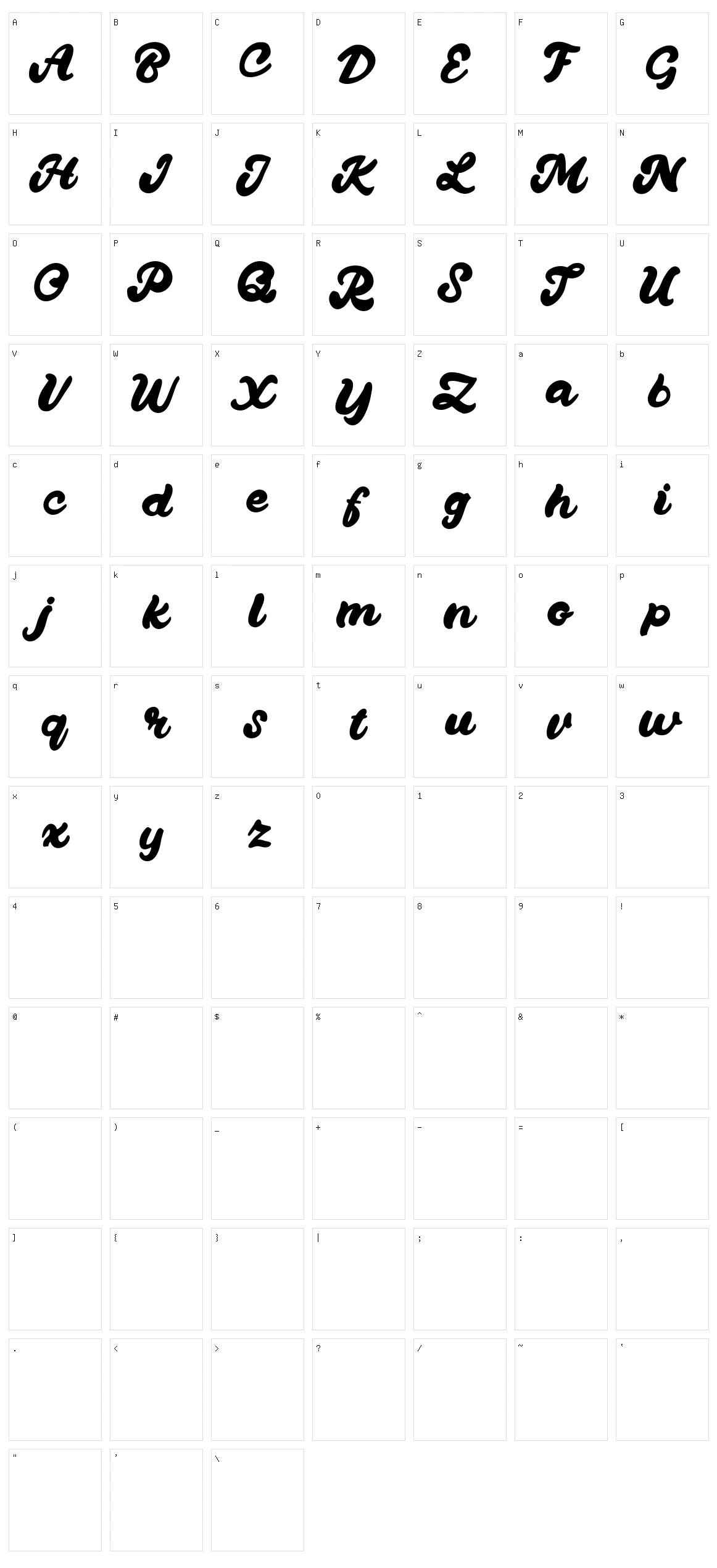
The free font Quanty is carefully designed by Vunira Design, showcasing a thoughtful balance of creativity and usability and falls under the Old-School font style. When you download the ZIP file, it contains only 42.55 KB of font files, making it lightweight and quick to download. Please review the license details below to understand permitted usage and distribution rights. If license information is not available, we recommend using this font for personal projects only or contacting the author directly for commercial usage permissions.